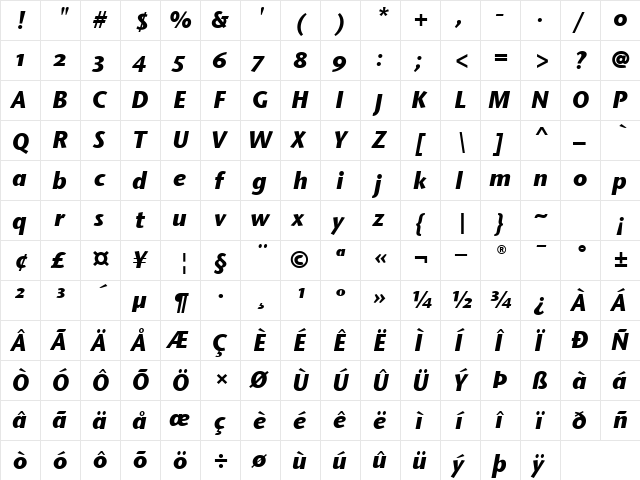
Stone Sans OS ITC TT BoldItalic Font Preview
Design Context for Stone Sans OS ITC TT Typeface
Stone Sans OS ITC TT offers clean, dependable letterforms without strong stylistic allegiance, making it a practical choice for designers who need flexibility. Its italic angle brings a sense of urgency and motion to the letterforms. The heavy weight commands attention and anchors typographic hierarchies.
Pro Tip: Try Stone Sans OS ITC TT for annotation and caption copy alongside an upright companion — the contrast in angle creates a dynamic but ordered typographic system.